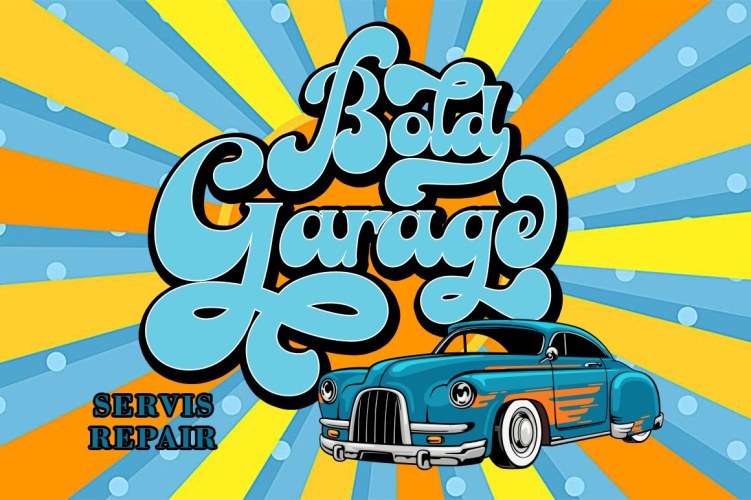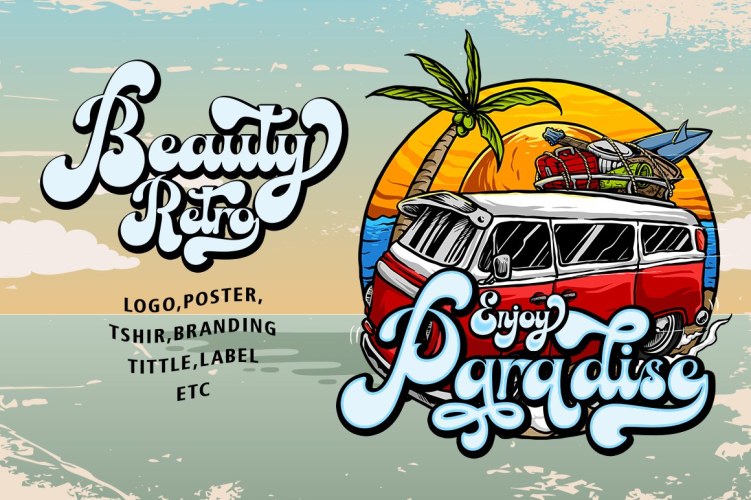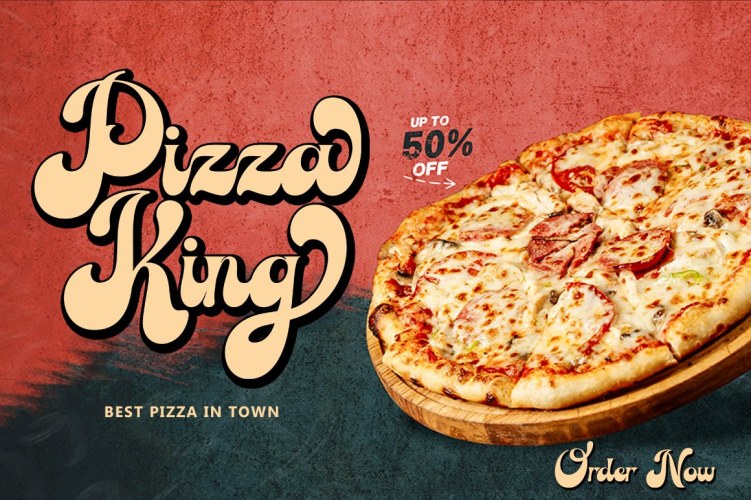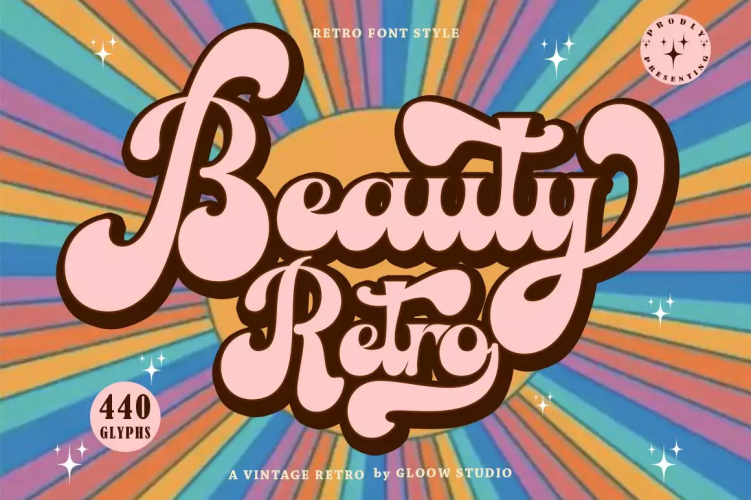
Beauty Retro Font
Beauty Retro Font is a Retro Script Font with a Bold style. It’s perfect for branding, wedding invitations, photography, Neon Sign, bloggers, logos, greeting cards, Logo…
Beauty Retro Font is a Retro Script Font with a Bold style. It’s perfect for branding, wedding invitations, photography, Neon Sign, bloggers, logos, greeting cards, Logo, Quotes, Poster and more.
Where Beauty Retro Font works best
A short phrase in Beauty Retro Font carries warmth that a typeset sans cannot fake; keep the rest of the card plain.
Chalkboard-style headings in Beauty Retro Font make a menu feel hand-made. Keep the dish descriptions in a simple face so prices stay readable.
One line of Beauty Retro Font over a photo is enough; the script carries the tone and the caption does the work.
What kind of work does Beauty Retro Font suit?
It sits in the Script And Handwritten group and reads as bold, branding, retro, script. That makes it a candidate wherever those qualities help: headings, packaging, social graphics and brand work. Set it at the size you plan to use before deciding.